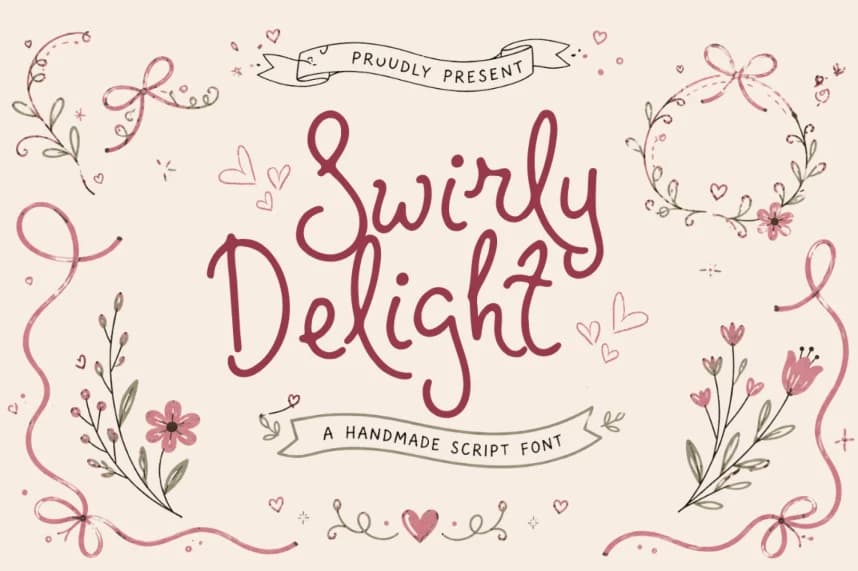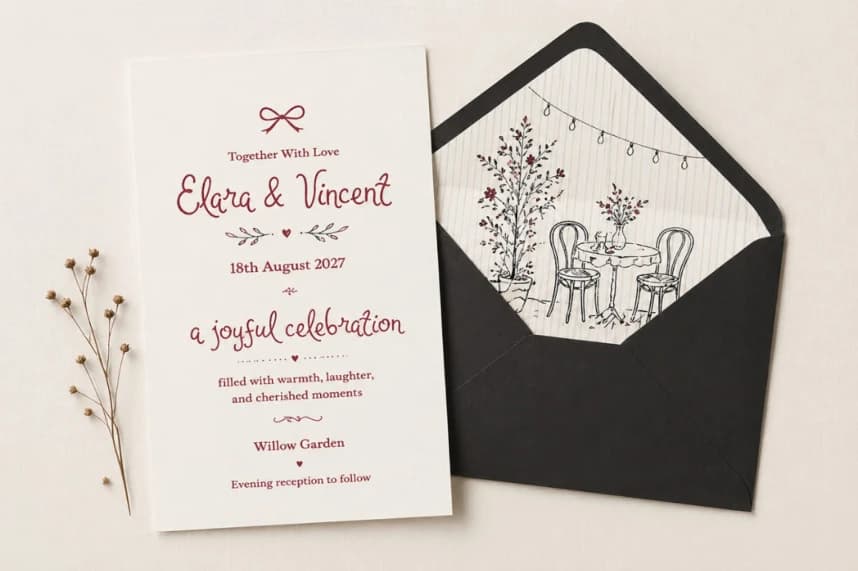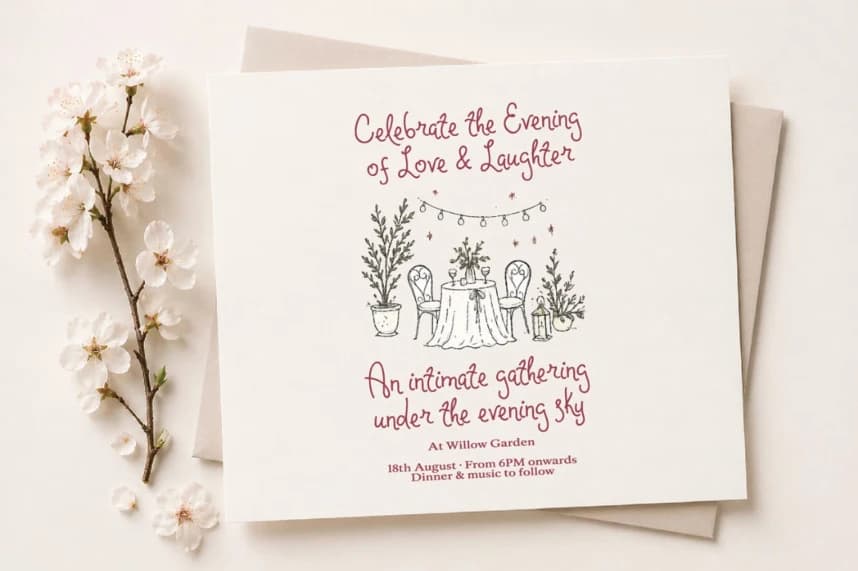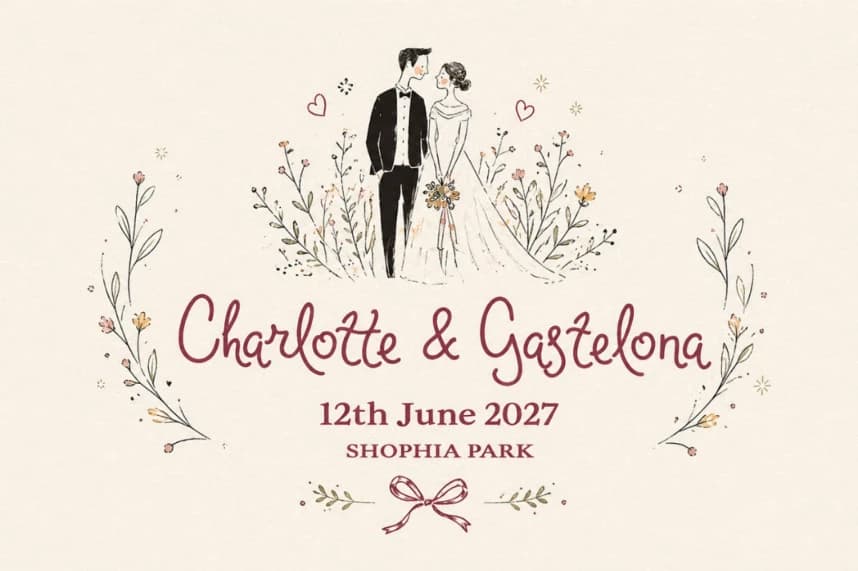
Swirly Delight Font
Swirly Delight Font is a charming handmade script font filled with sweetness, warmth, and playful elegance. With its soft curves, whimsical swirls, and delicate hand-drawn feel, this font brings a lovely and heartfelt touch to your designs.